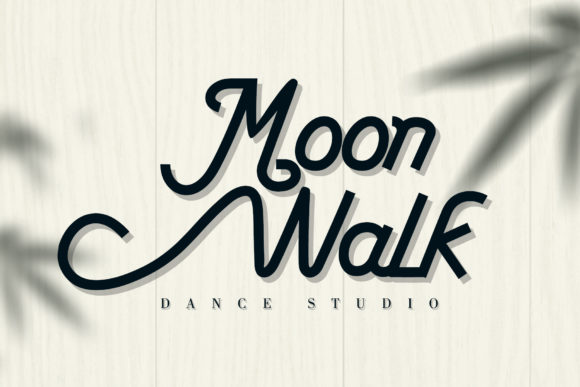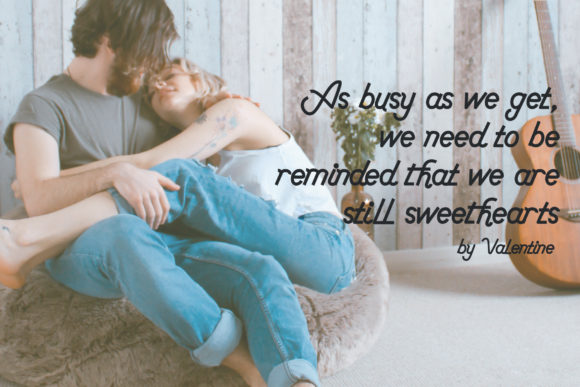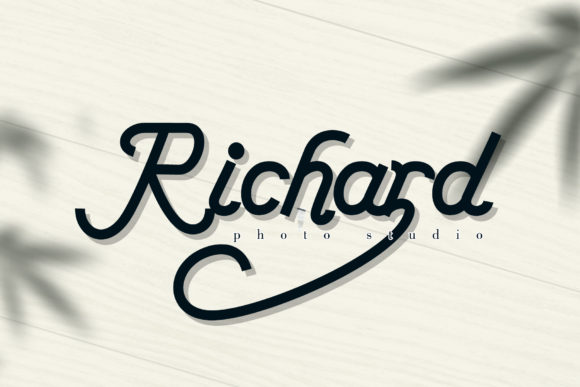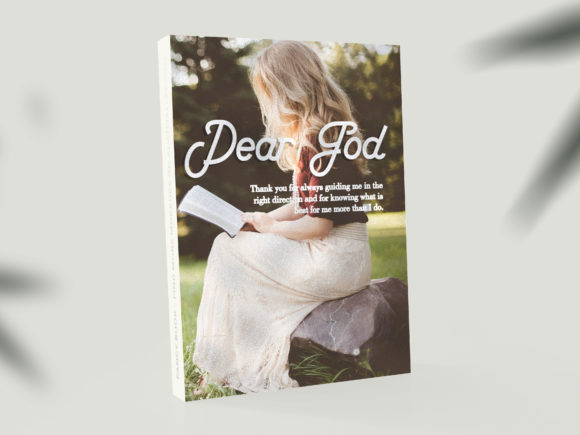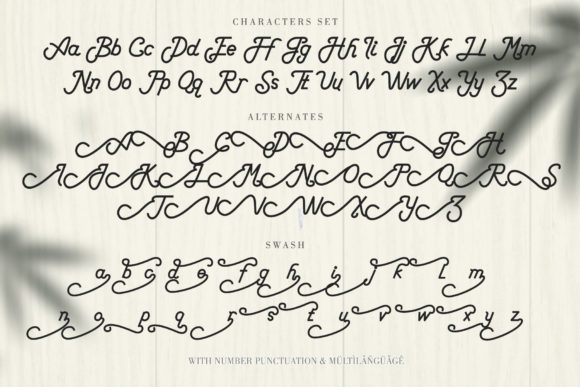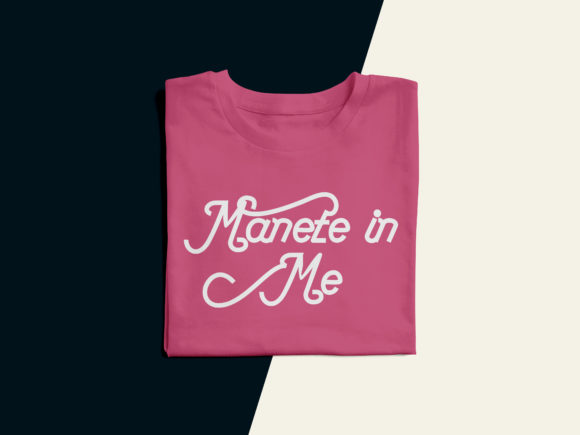
Discover the Unique Charm of Anderson Silva Font
Are you a designer or crafter looking for a font that can add a personal touch to your autumn-themed designs? Look no further than the Anderson Silva font. This dynamic font is perfect for creating warm and inviting designs that capture the essence of the season. In this article, we’ll explore the features and benefits of Anderson Silva font and how it can elevate your design game.
What is Anderson Silva Font?
Anderson Silva font is a handwritten-style font that is designed to add a unique feel to your designs. Its dynamic and fluid lines make it perfect for creating eye-catching and engaging designs. The font is named after the famous Brazilian mixed martial artist Anderson Silva, but don’t let that fool you – this font is not just for sports-themed designs. Its versatility makes it suitable for a wide range of design projects, from autumn-themed designs to wedding invitations and more.
Why Choose Anderson Silva Font for Autumn-Themed Designs?
Autumn is a season of warmth and coziness, and Anderson Silva font is the perfect choice to capture that feeling. The font’s handwritten style and dynamic lines evoke a sense of nostalgia and comfort, making it ideal for designs that require a personal touch. Whether you’re creating a seasonal greeting card, a fall-themed poster, or a cozy autumn-inspired website, Anderson Silva font is sure to add a unique and inviting touch.
Features and Benefits of Anderson Silva Font
So, what makes Anderson Silva font so special? Here are just a few of its key features and benefits:
- Handwritten style: Anderson Silva font has a unique, handwritten style that adds a personal touch to your designs.
- Dynamic lines: The font’s dynamic lines make it perfect for creating eye-catching and engaging designs.
- Versatility: Anderson Silva font is suitable for a wide range of design projects, from autumn-themed designs to wedding invitations and more.
- Easy to read: Despite its handwritten style, Anderson Silva font is easy to read and understand, making it perfect for body text and headings.
How to Use Anderson Silva Font in Your Designs
Using Anderson Silva font in your designs is easy. Here are a few tips to get you started:
- Pair it with complementary fonts: Anderson Silva font pairs well with a range of fonts, from serif fonts like Times New Roman to sans-serif fonts like Arial.
- Use it for headings and titles: Anderson Silva font is perfect for headings and titles, where its dynamic lines and handwritten style can really shine.
- Experiment with colors: Anderson Silva font looks great in a range of colors, from warm autumnal tones to bold and bright colors.
In conclusion, Anderson Silva font is a unique and dynamic font that is perfect for autumn-themed designs. Its handwritten style and dynamic lines add a personal touch to your designs, making it ideal for designers and crafters looking to create warm and inviting designs. With its versatility, ease of use, and range of features and benefits, Anderson Silva font is sure to become a favorite in your design toolkit.